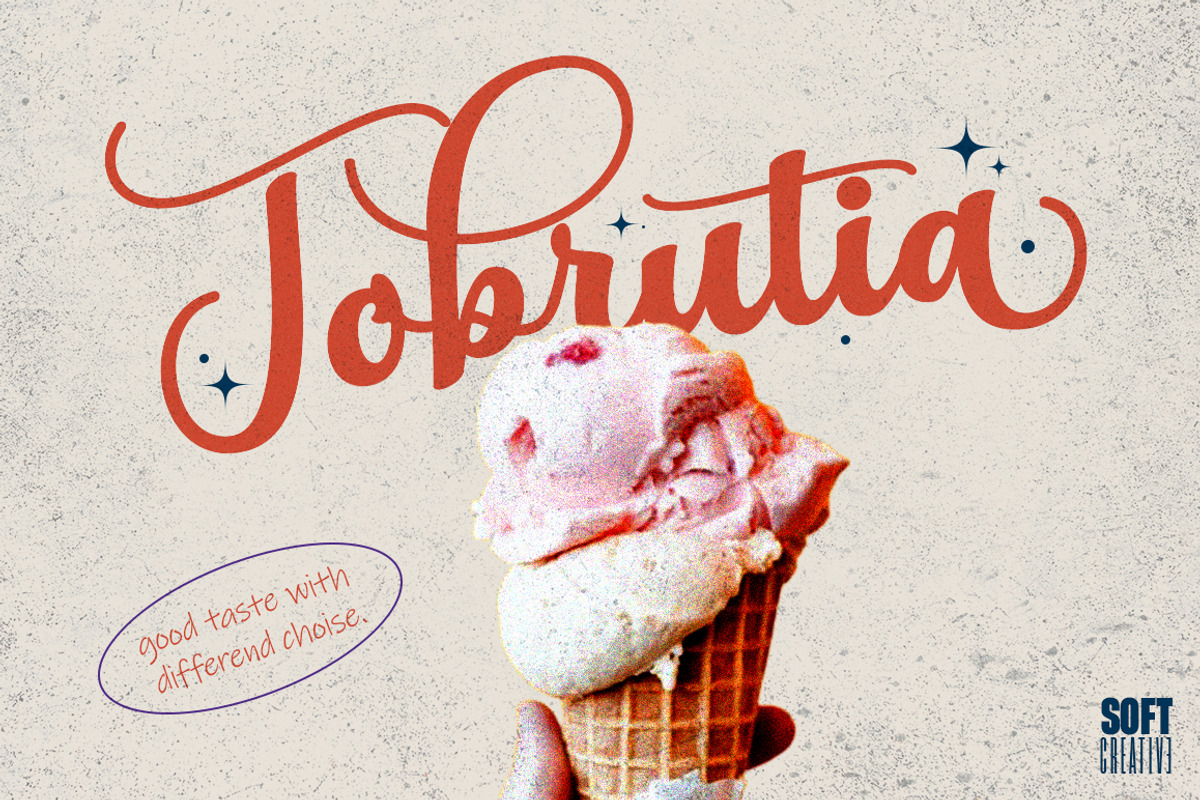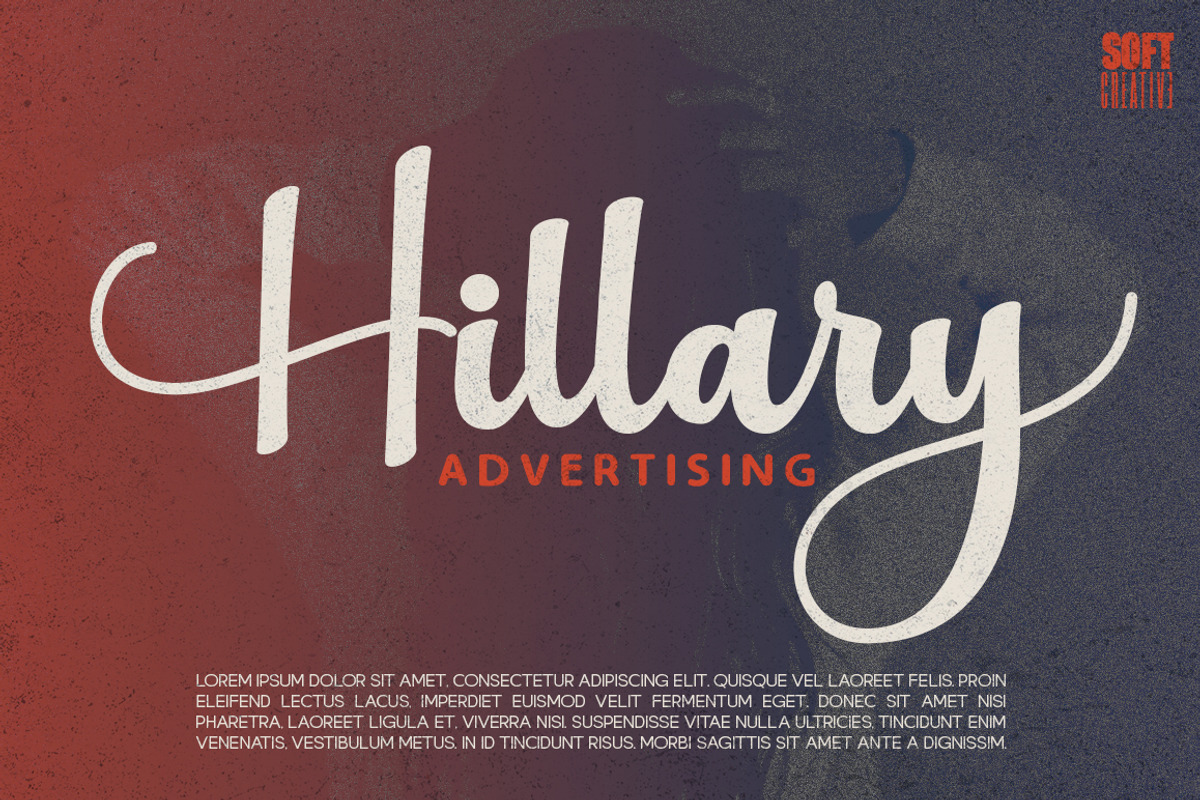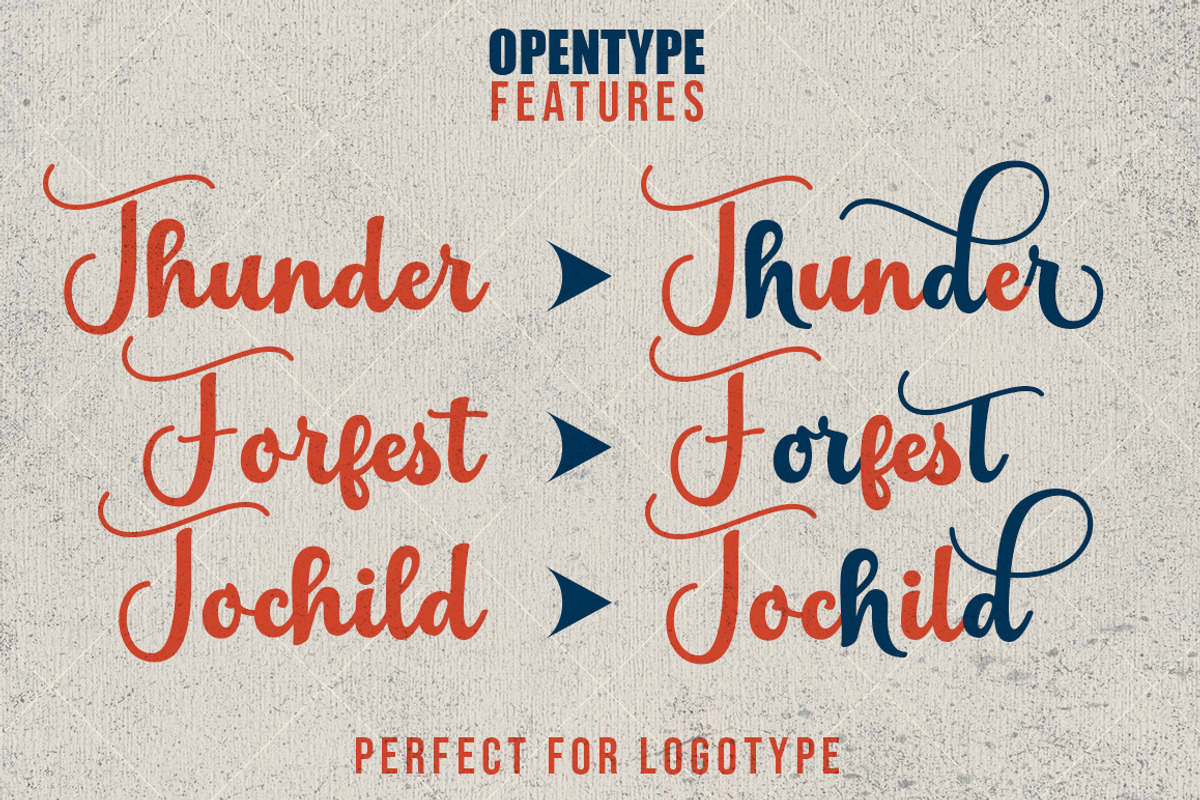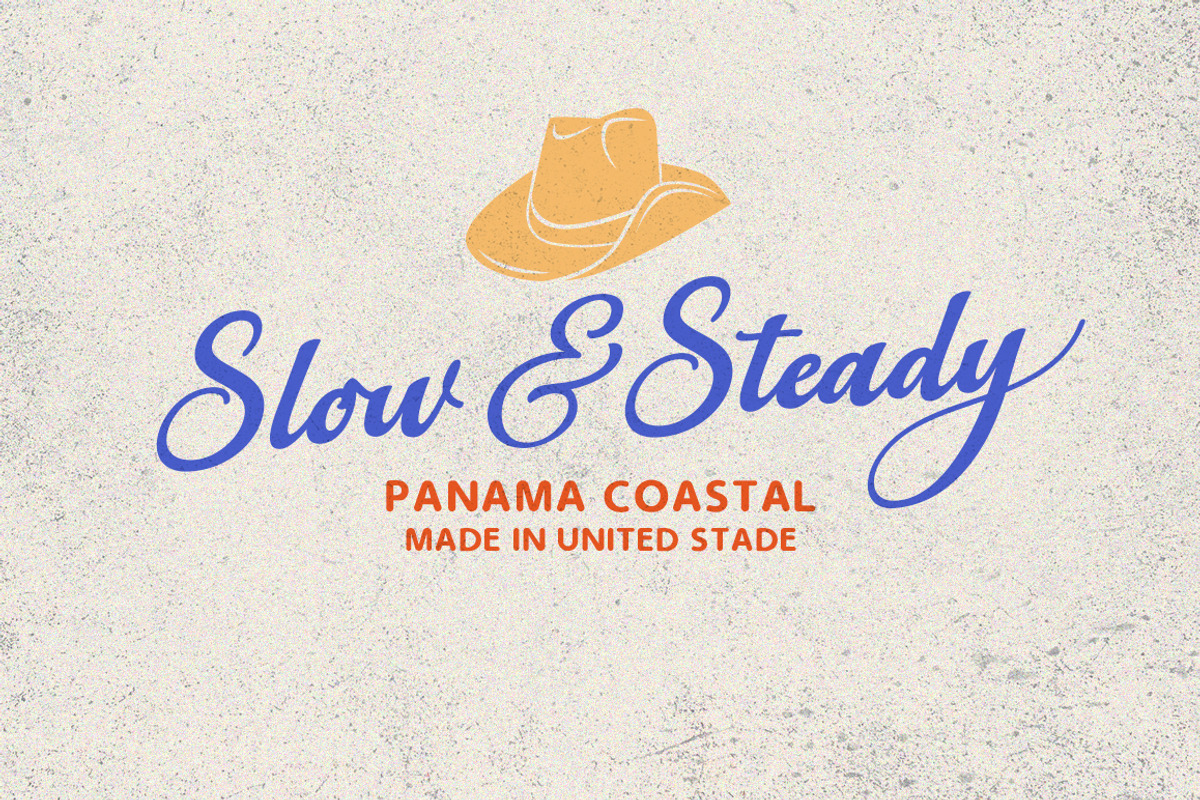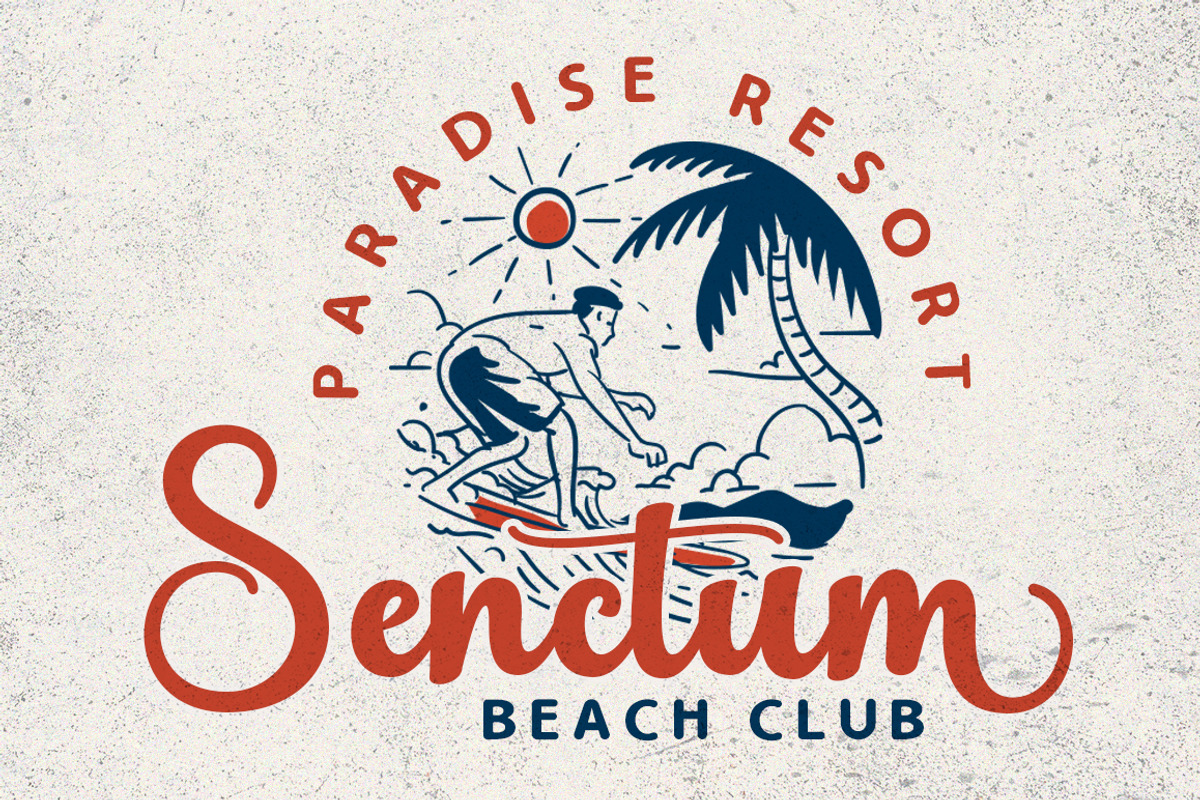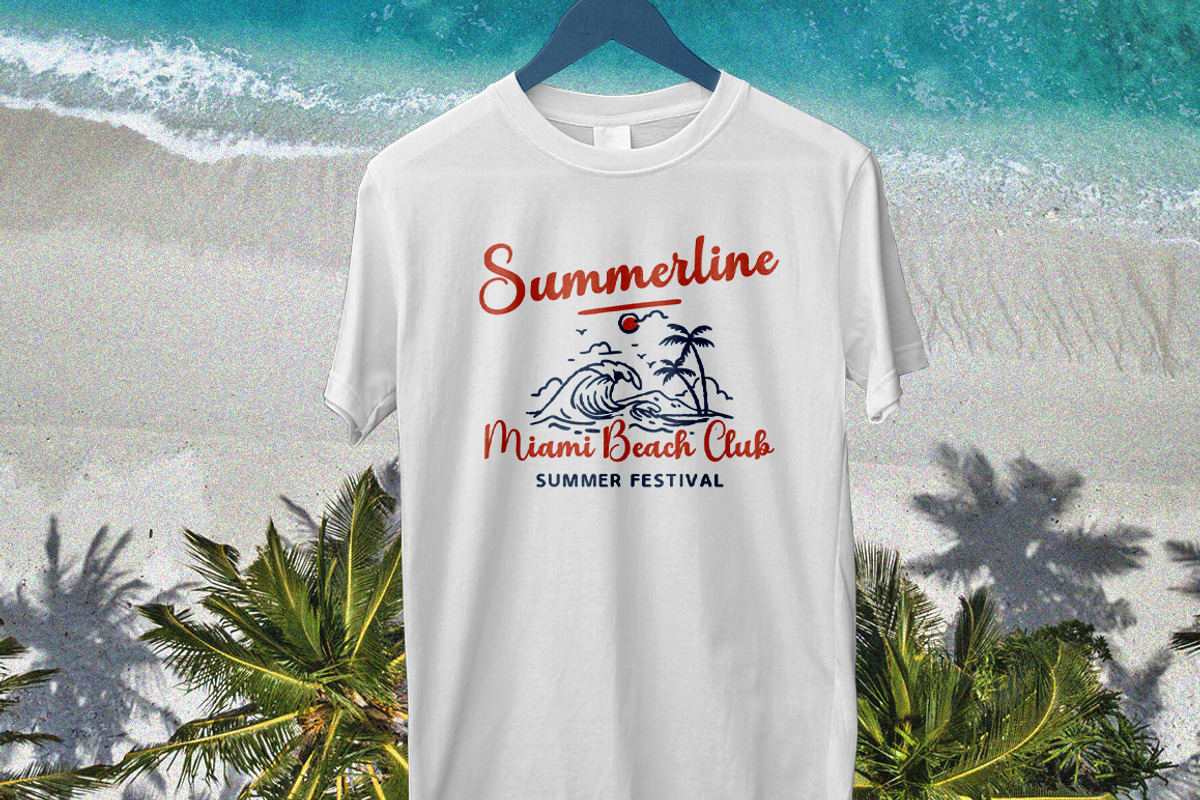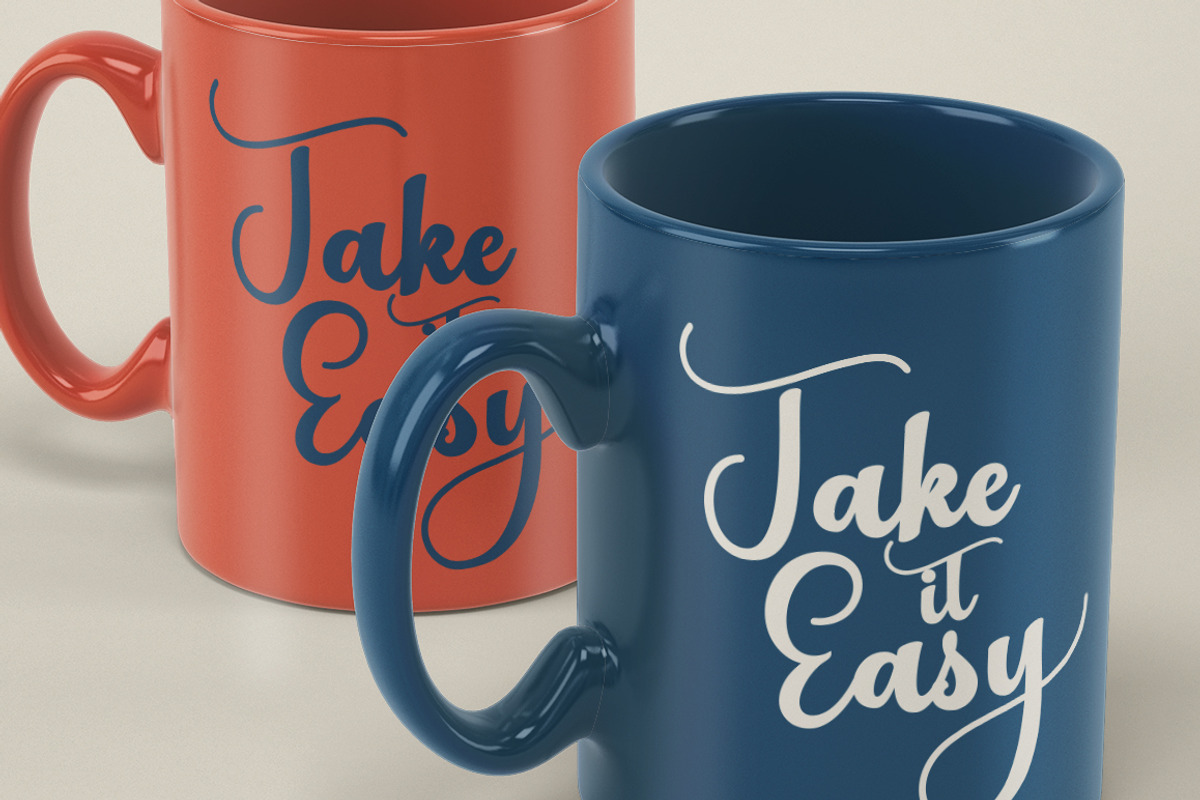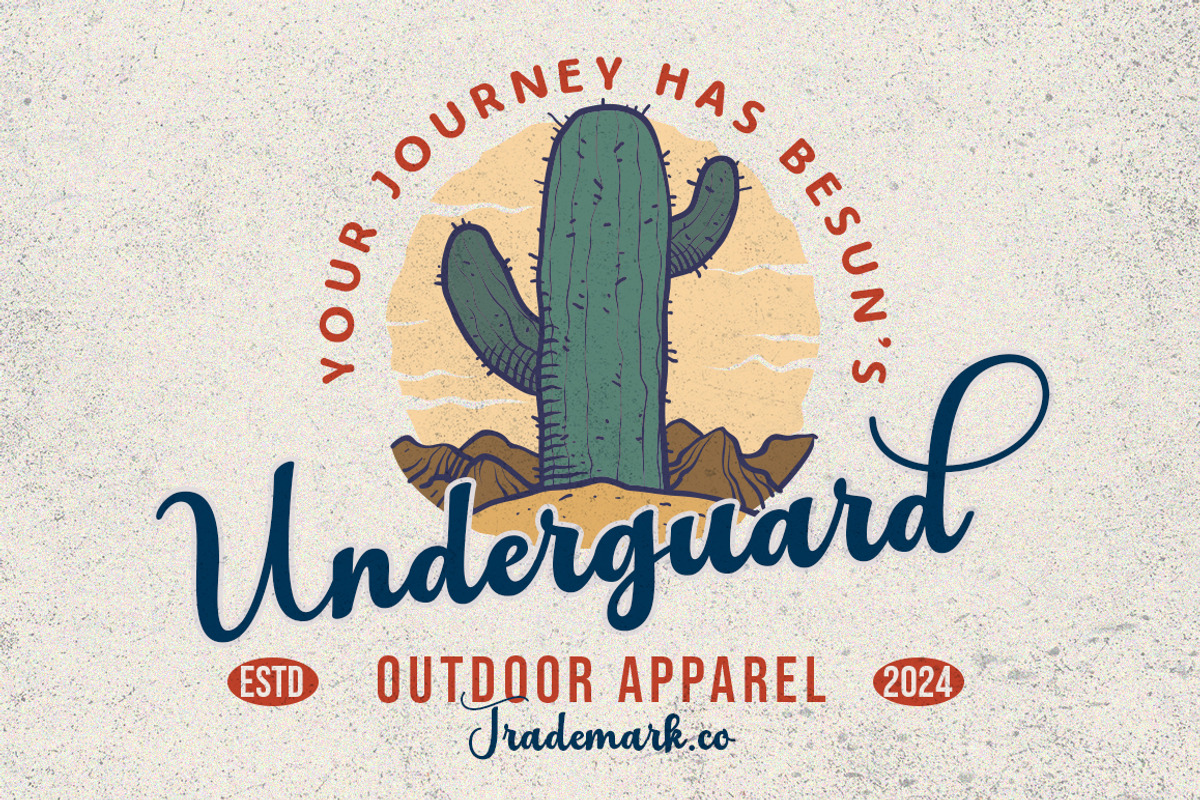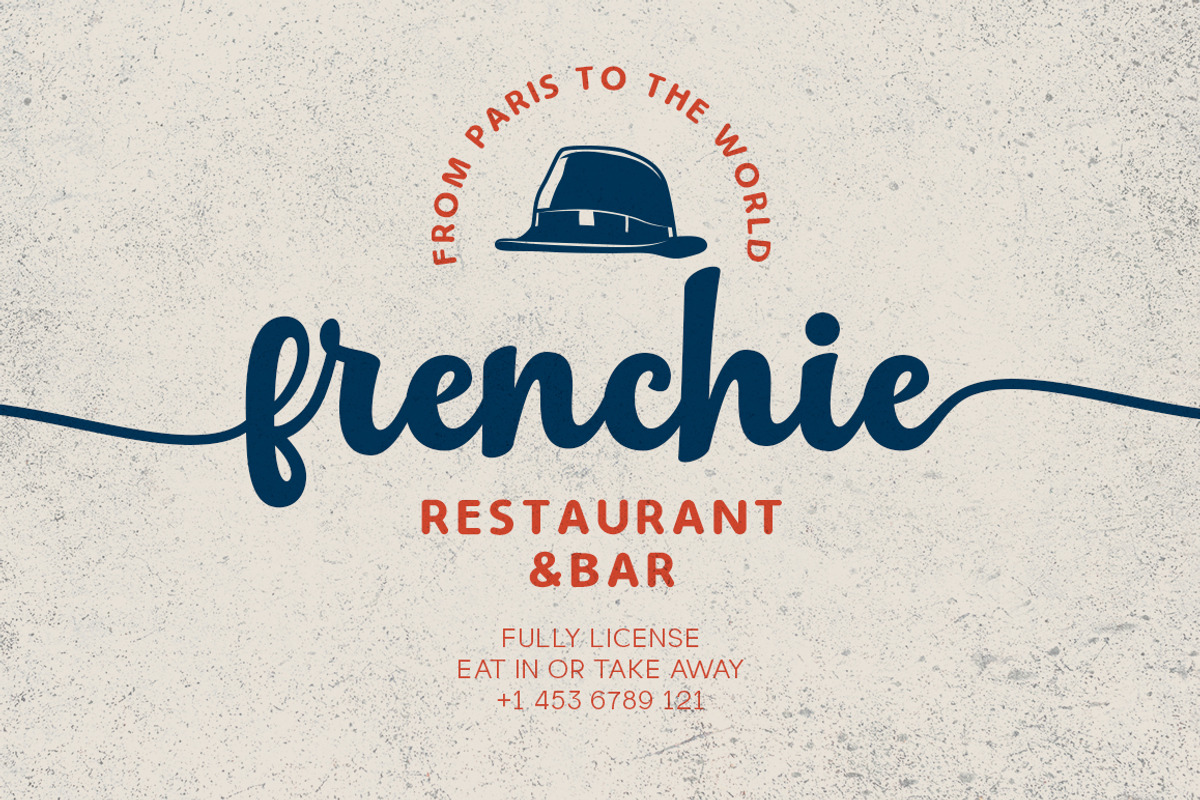
Himalaya Script
Introducing Himalaya Script. Delicate calligraphic scripts often include intricate scripts to attract attention and evoke feelings of nostalgia, fondness and warmth.
With its luxurious swirls, it brings a fun and light tone, with sweeping curves and flourishes, to add a vibrant and cheerful feel to your projects.
Himalaya also has two font files namely regular and italic, and also includes some whimsical and expressive Opentype alternatives, ligatures and swashes, check out the character set preview above for a glimpse of them all.